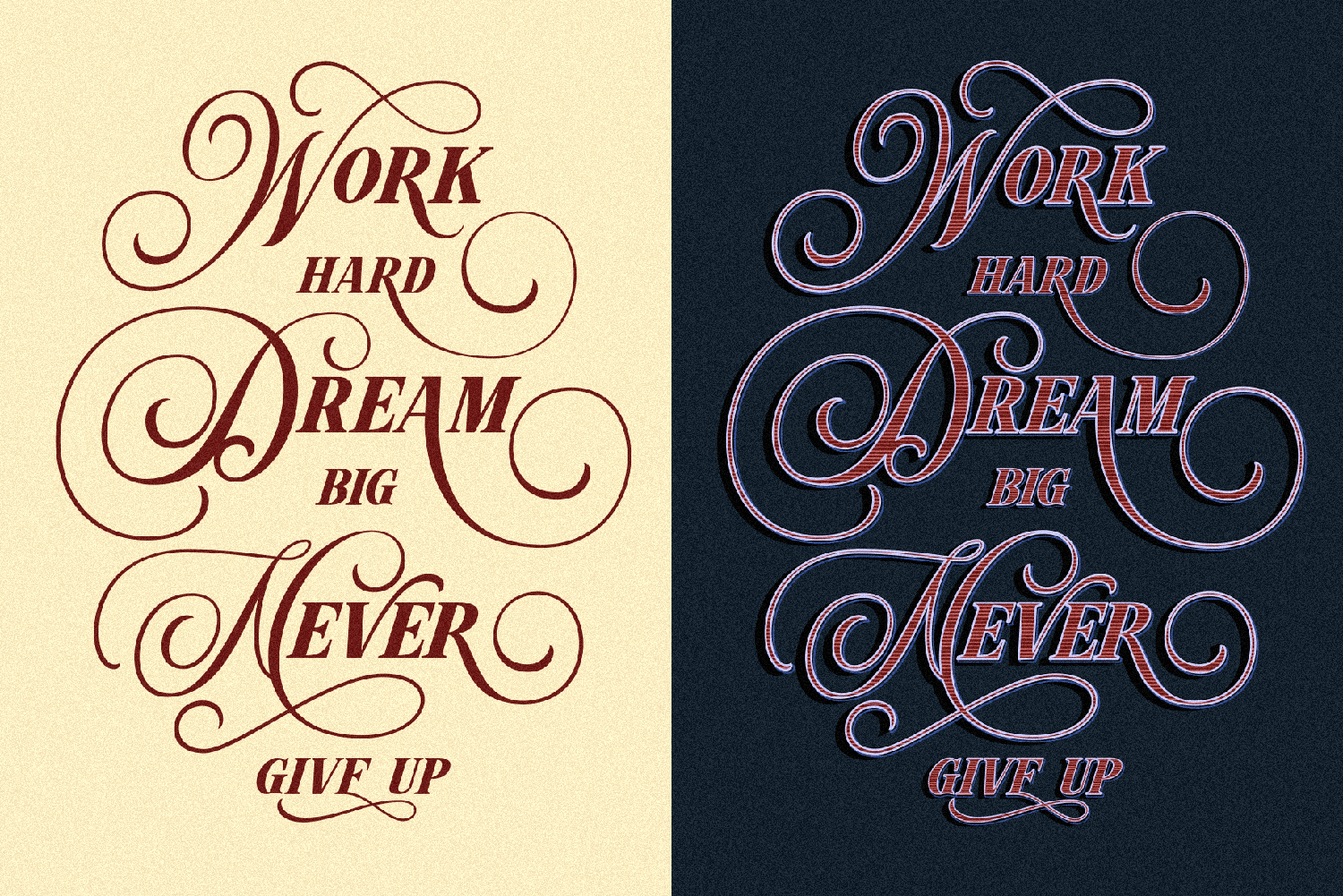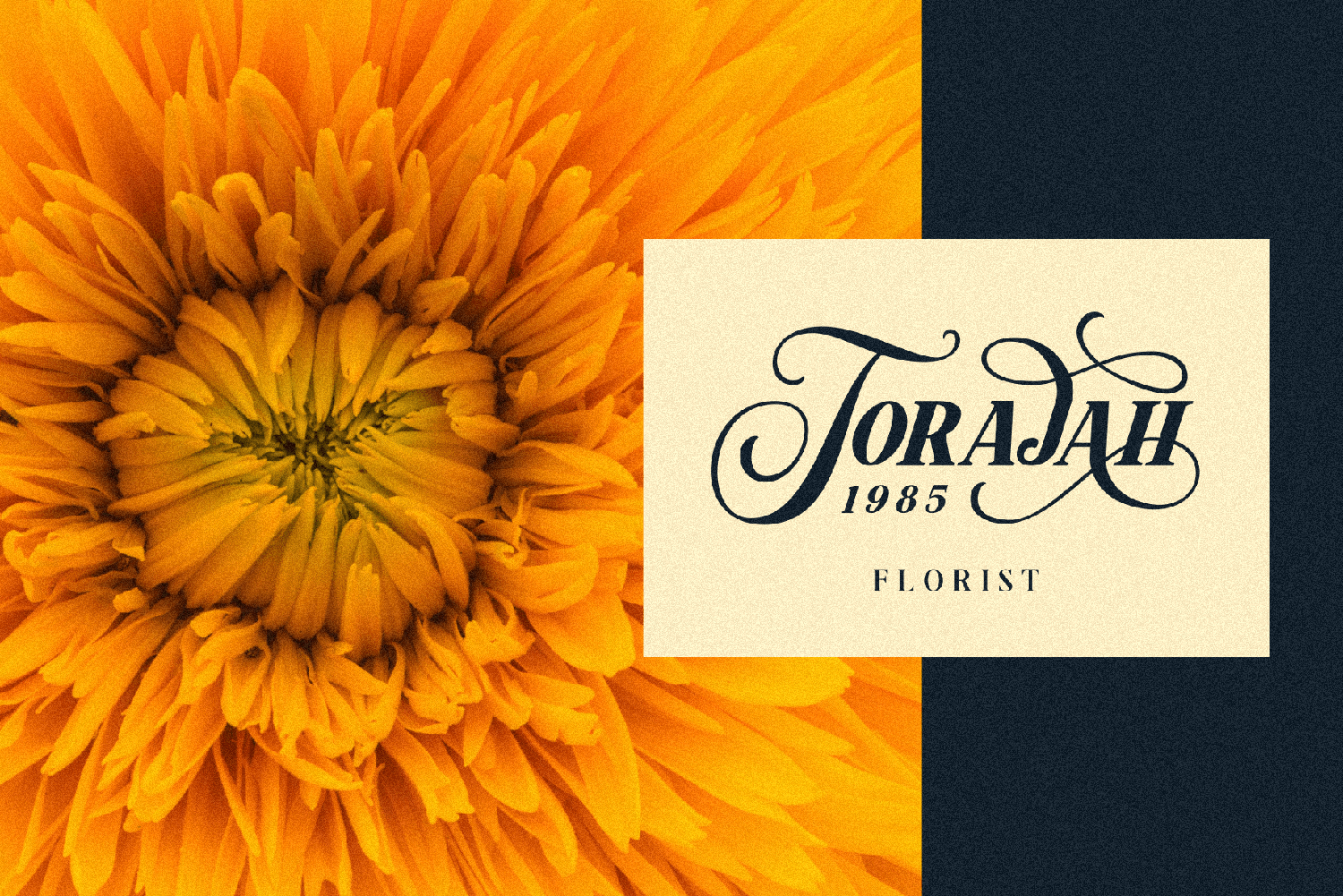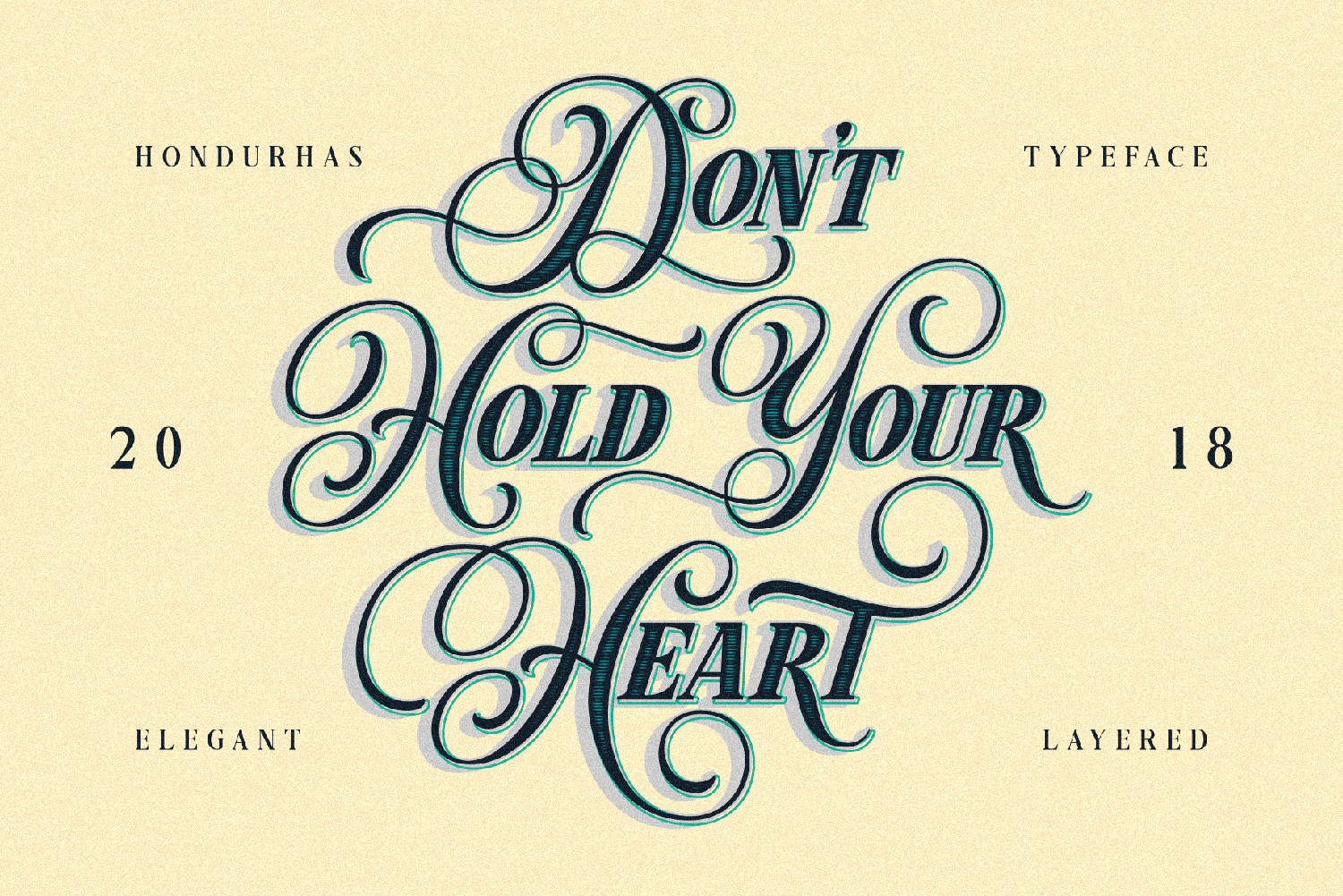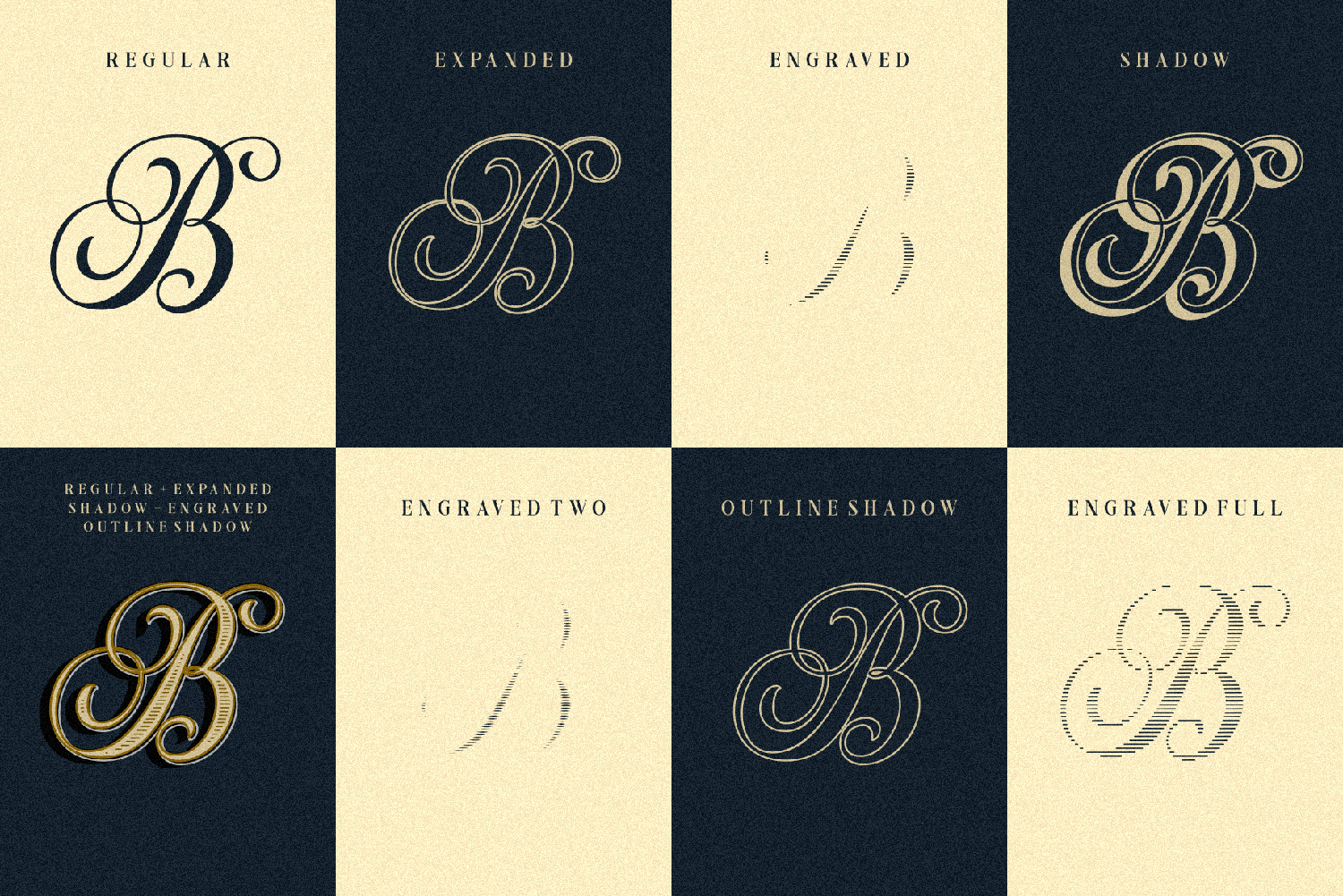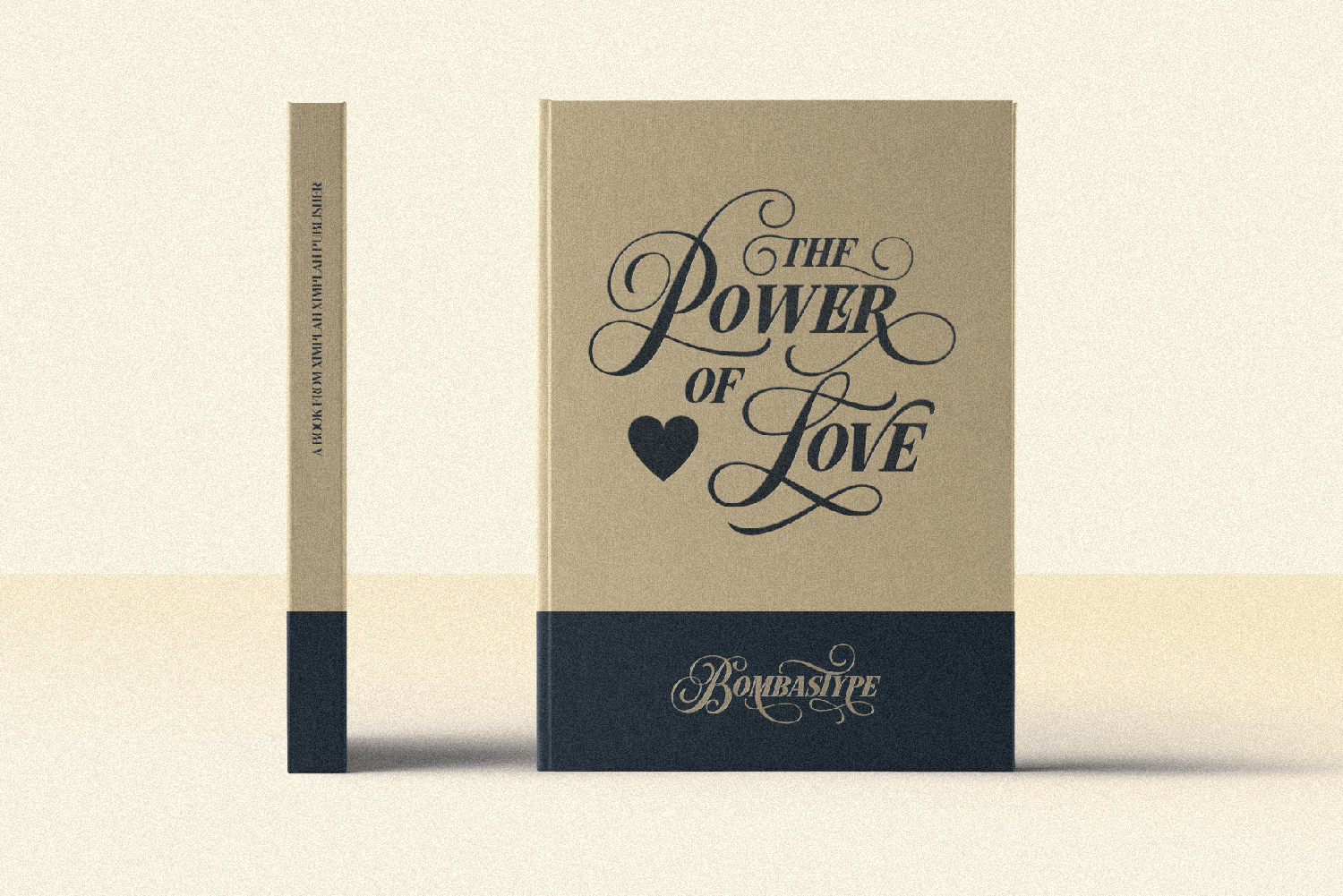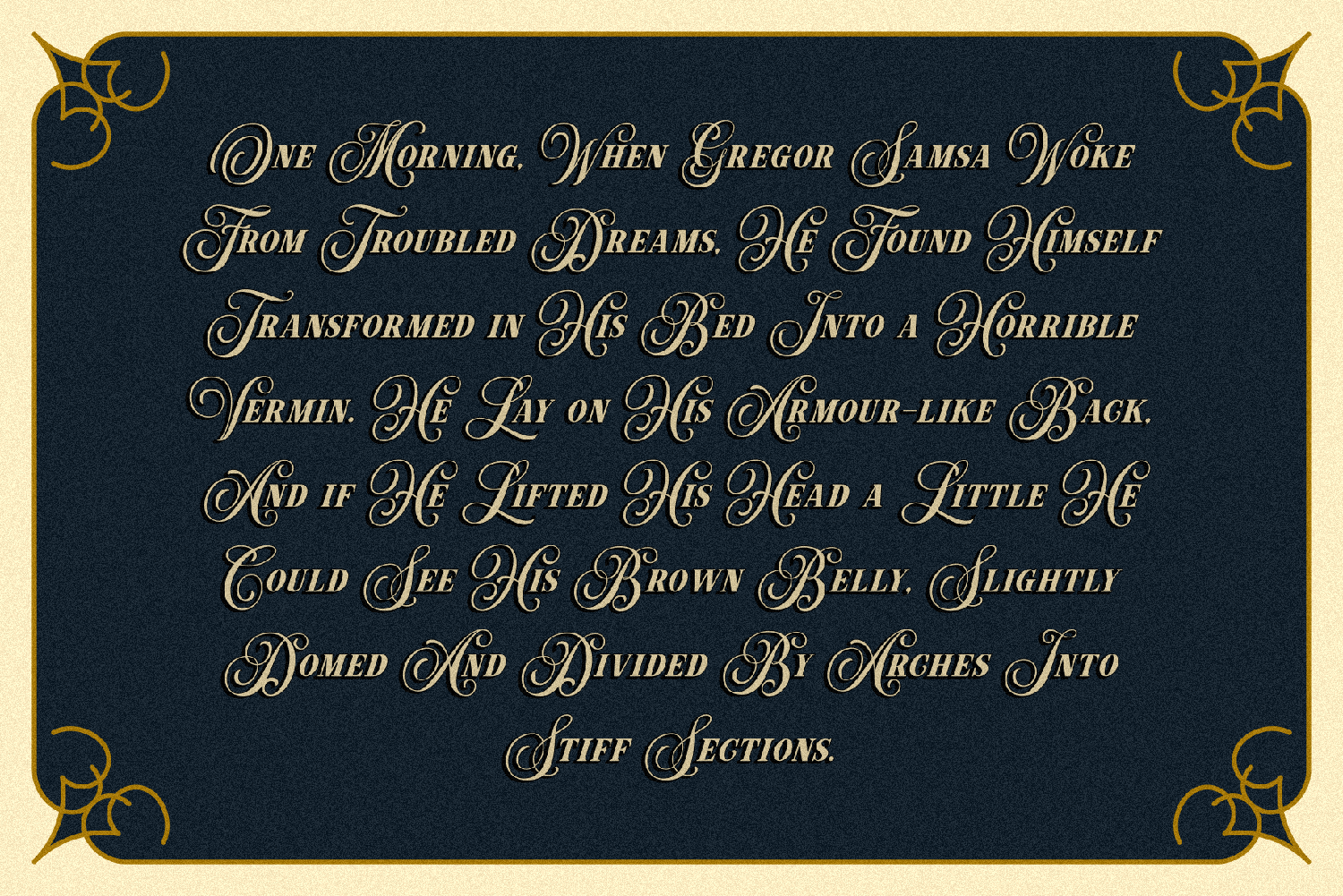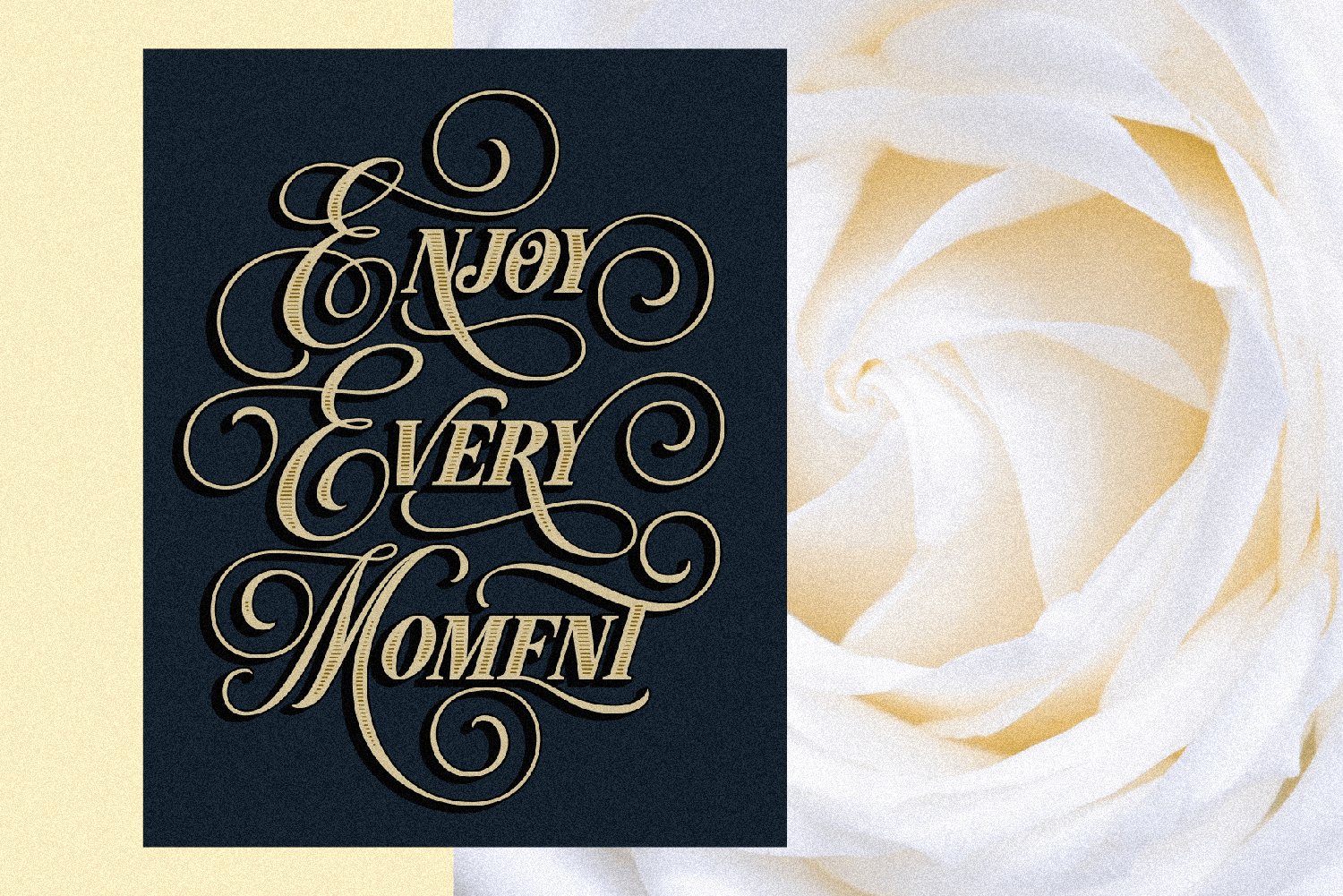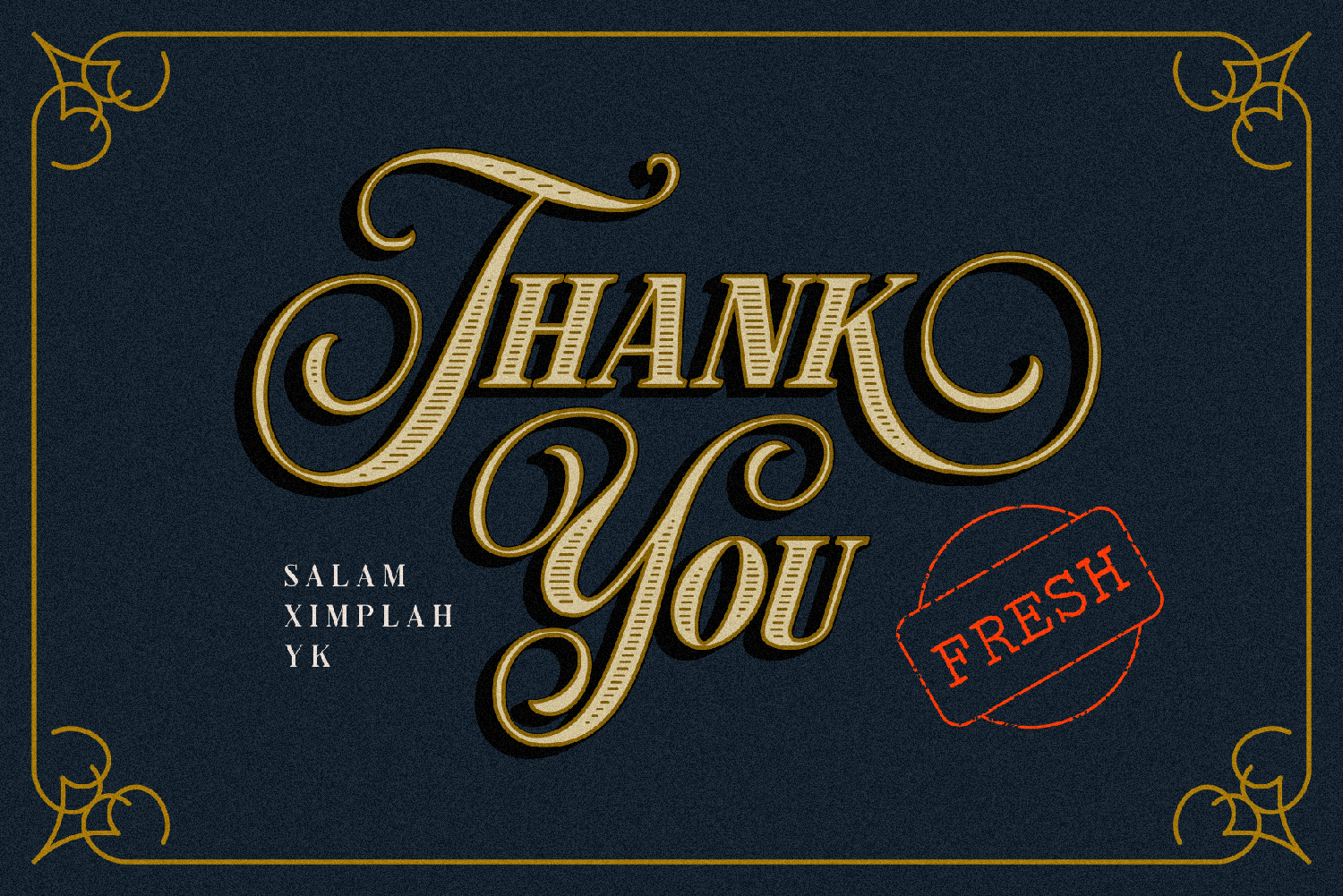
Hondurhas Free Font
Hondurhas Free Font is a new concept that combined script uppercase with serif lowercase for display purposes. Come up with many playful alternates, so you could mix n match for your needs. This free typeface was designed by talented Bombastype. If you like it don’t forget to check out the full version.